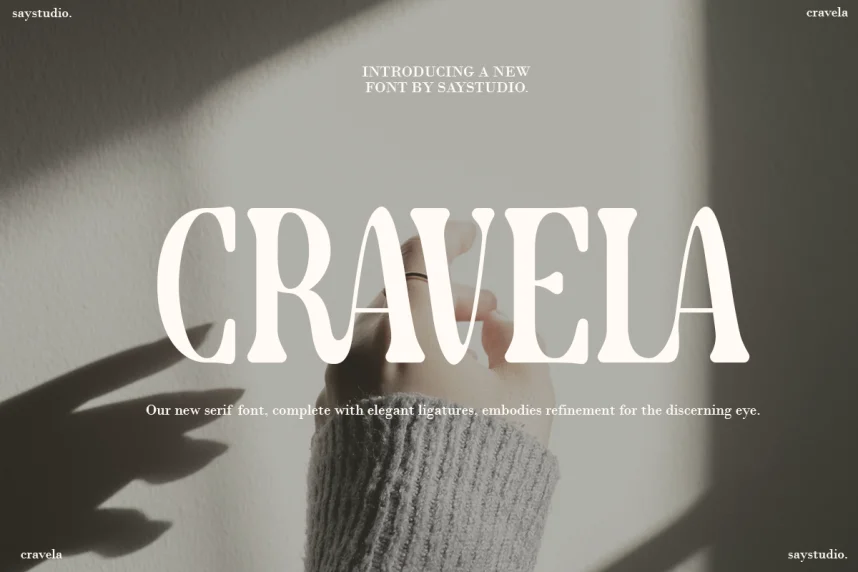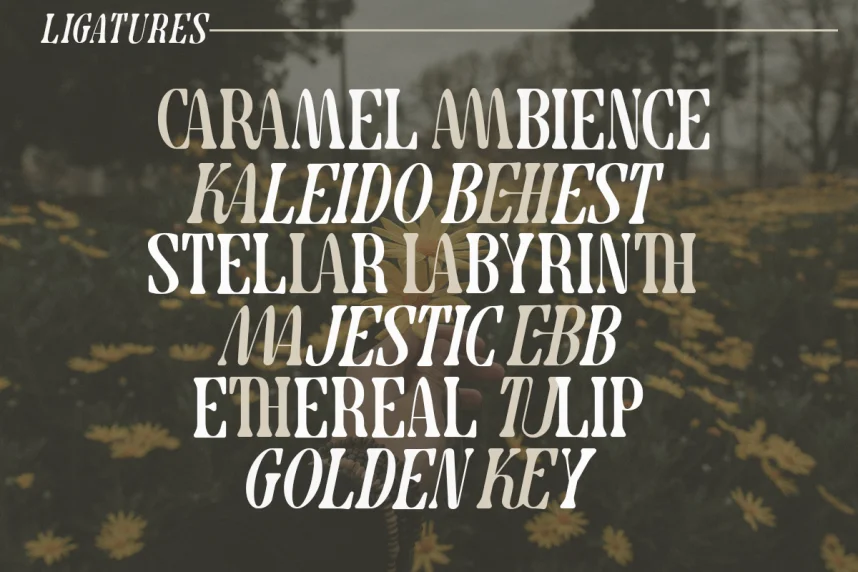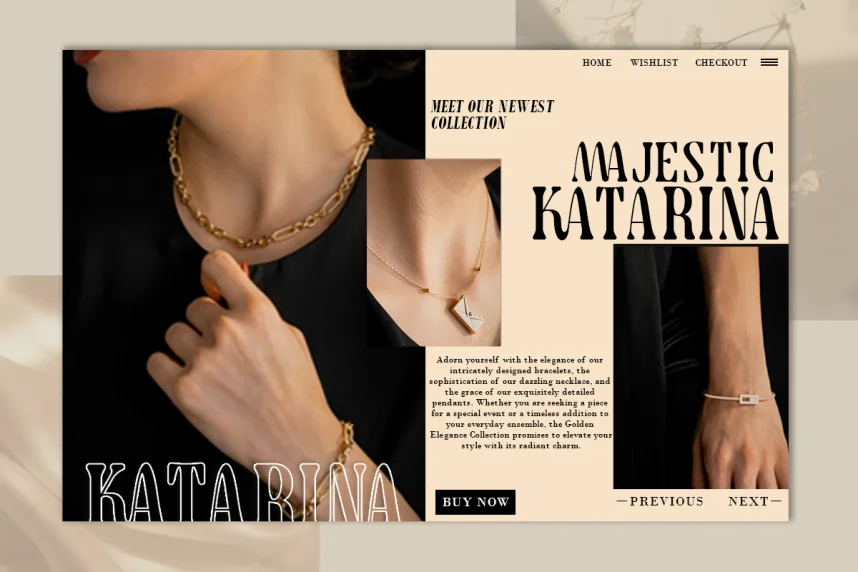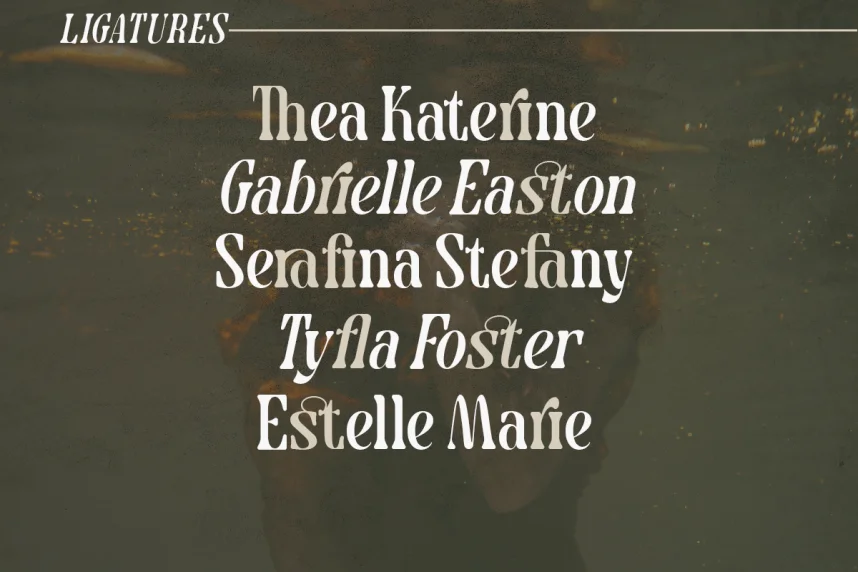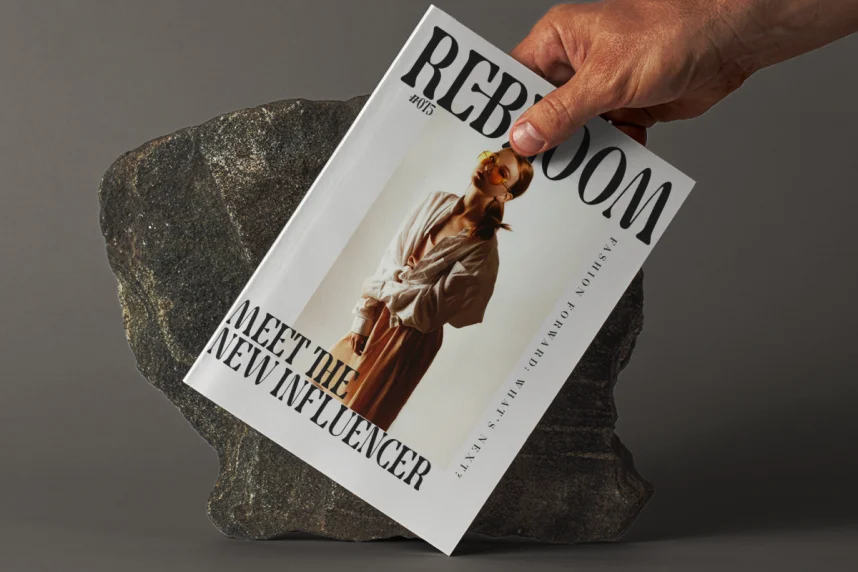
Cravela Font is a serif typeface designed for professional print and digital layouts where readability and classic elegance are critical. Its structured letterforms improve text consistency in logos, invitations, and editorial content.
This typeface includes moderate stroke contrast, balanced serifs, and clear spacing. Ligatures and multiple weights enhance flexibility for headings, body text, and brand identity materials, providing a formal yet accessible visual impression.